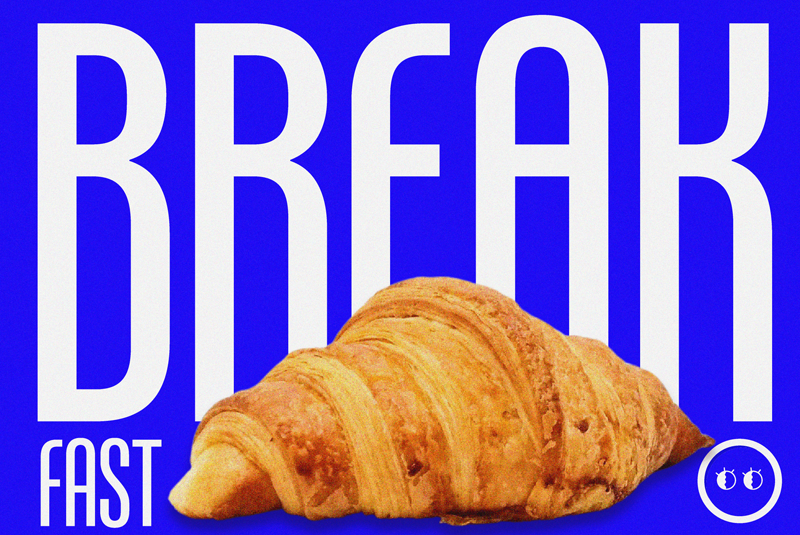
Introducing ZT Break Fast, a boldless font that combines a modern aesthetic with incredible versatility. Expertly crafted, the ZT Break Fast comes in four unique styles: normal, normal round, alternative with a higher vertical line height, and alternative round. Each style is available in four weights: thin, extra light, light, and regular, giving designers the freedom to explore their creativity. ZT Break Fast: Free to try, with no characters reduced and no kerning removed. Try it first before you decide to buy. Take advantage of our promotional price for this new font release�Only $10! To download the full font family please visit our website: https://zelowtype.gumroad.com/l/ztbreakfast?layout=profile Donation are very appreciated. Paypal account for donation : https://paypal.me/khaiuns CONTACT US: have a question?: selowtype@gmail.com |